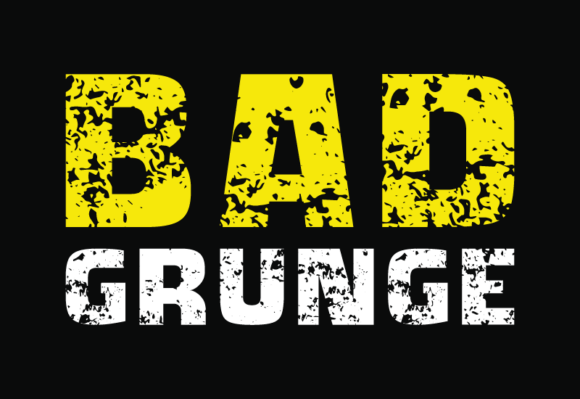
Experience the Uniqueness of Bad Grunge Font: A Typography Revolution
In the world of typography, fonts play a crucial role in conveying messages, expressing emotions, and creating visual identities. Among the numerous fonts available, one typeface stands out for its remarkable and irregular taste – Bad Grunge. This display font is more than just a typeface; it’s a visual statement that embodies the spirit of rugged individualism and rebellion. In this article, we’ll explore the unique features of Bad Grunge font, its applications, and how it can elevate your design landscape.
The Birth of Bad Grunge: A Story of Rebellion
Bad Grunge font was created with the intention of disrupting the conventional norms of typography. Its bold lines, distressed texture, and irregular shapes evoke a sense of rugged vigor and non-conformity. The font’s design is inspired by the grunge movement of the 1990s, which celebrated individualism, rebellion, and a DIY ethos. Bad Grunge font is a modern interpretation of this aesthetic, distilled into a typographic experience that’s both bold and thought-provoking.
Key Features of Bad Grunge Font
- Distressed Texture: Bad Grunge font features a unique distressed texture that gives it a worn, rugged look. This texture adds a layer of depth and visual interest to any design.
- Bold Lines: The font’s bold lines create a sense of confidence and assertiveness, making it perfect for designs that require a strong visual statement.
- Bad Grunge font’s irregular shapes and curves add a touch of unpredictability, making it ideal for designs that require a creative edge.
- Unashamed Boldness: The font’s boldness is unapologetic and uncompromising, making it perfect for designs that require a strong, attention-grabbing presence.
Applications of Bad Grunge Font
Bad Grunge font is versatile and can be used in various design applications, including:
- Poster Designs: Bad Grunge font is perfect for creating eye-catching poster designs that require a bold, attention-grabbing presence.
- Album Art: The font’s distressed texture and bold lines make it an excellent choice for album art that requires a rugged, edgy look.
- Streetwear Imaging: Bad Grunge font’s bold, irregular shapes make it perfect for streetwear imaging that requires a strong, individualistic presence.
- Branding and Identity: The font’s unique texture and bold lines make it an excellent choice for branding and identity designs that require a distinctive, memorable presence.
Why Choose Bad Grunge Font?
Bad Grunge font offers a unique combination of boldness, individuality, and creativity, making it an excellent choice for designers who want to create a lasting impression. Here are some reasons why you should choose Bad Grunge font:
- Uniqueness: Bad Grunge font is unlike any other font available. Its distressed texture, bold lines, and irregular shapes make it a one-of-a-kind typographic experience.
- Versatility: The font is versatile and can be used in various design applications, from poster designs to streetwear imaging.
- Emotional Connection: Bad Grunge font creates an emotional connection with the audience, evoking feelings of rebellion, individuality, and creativity.
Tips for Using Bad Grunge Font
To get the most out of Bad Grunge font, here are some tips to keep in mind:
- Use it sparingly: Bad Grunge font is bold and attention-grabbing, so use it sparingly to avoid overwhelming the audience.
- Pair it with contrasting fonts: Pair Bad Grunge font with contrasting fonts to create visual interest and hierarchy.
- Experiment with colors: Experiment with different colors to find the perfect combination that complements the font’s distressed texture and bold lines.
Bad Grunge font is a typographic experience that embodies the spirit of rugged individualism and rebellion. Its unique features, versatility, and emotional connection make it an excellent choice for designers who want to create a lasting impression. Whether you’re designing a poster, album art, or streetwear imaging, Bad Grunge font is the perfect choice for communicating your message with profound resonance. So, experience the uniqueness of Bad Grunge font and elevate your design landscape today!